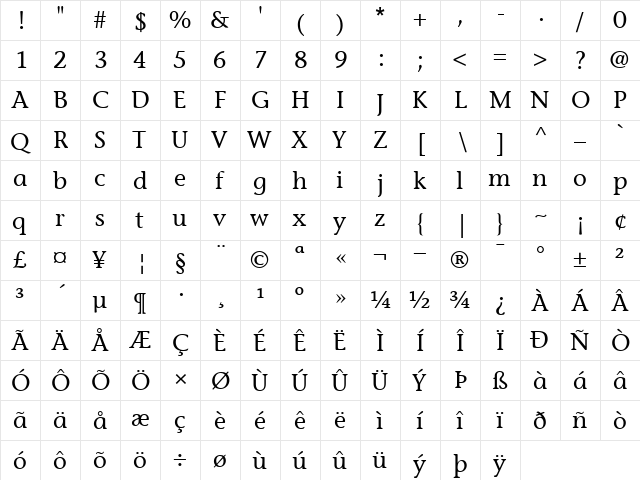
ITCStoneInformal Roman Font Preview
ITCStoneInformal Roman
Design Context for ITCStoneInformal Typeface
ITCStoneInformal offers clean, dependable letterforms without strong stylistic allegiance, making it a practical choice for designers who need flexibility.
Pro Tip: Pair ITCStoneInformal with a font of contrasting weight or personality to build a more expressive typographic hierarchy.